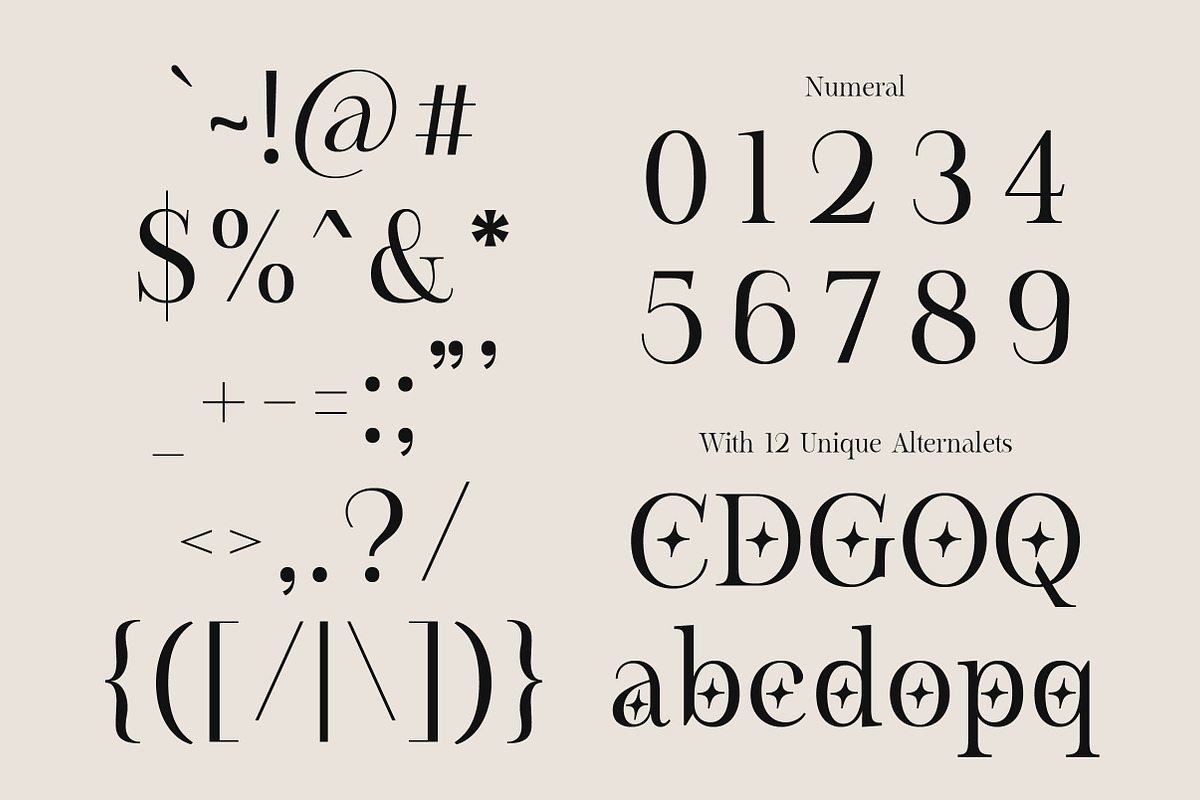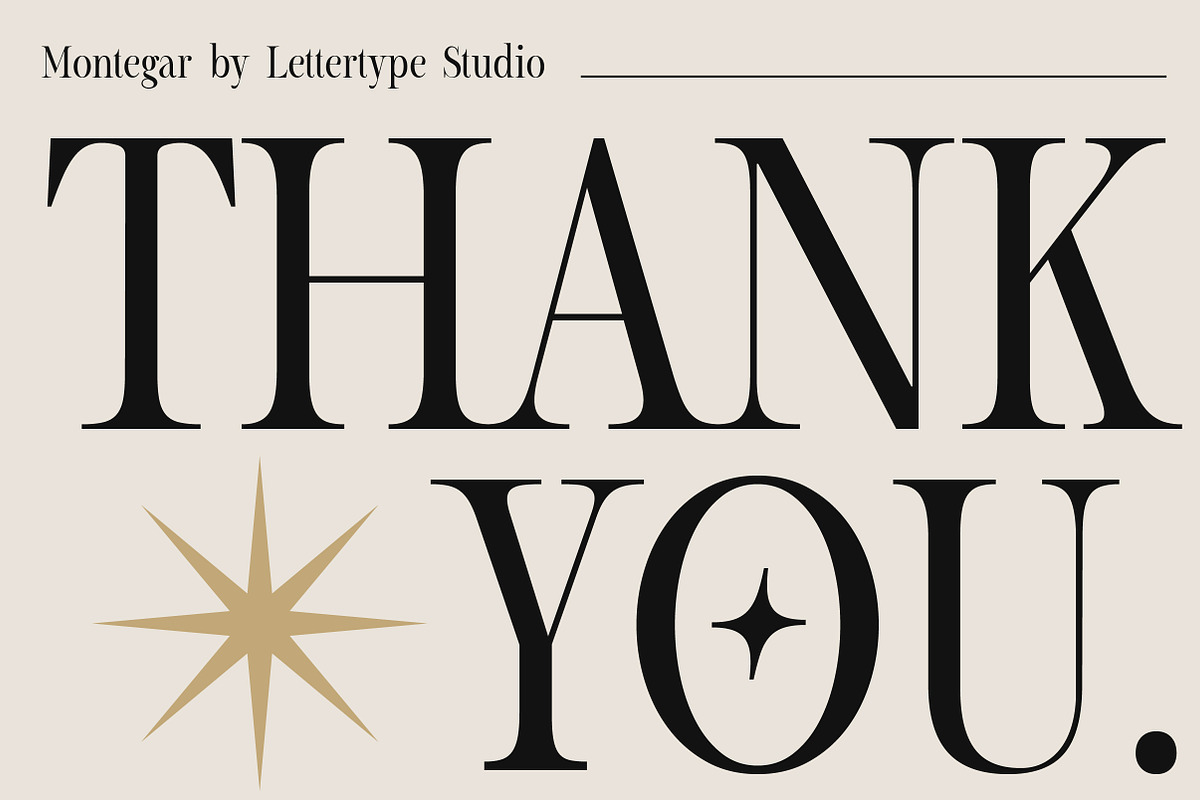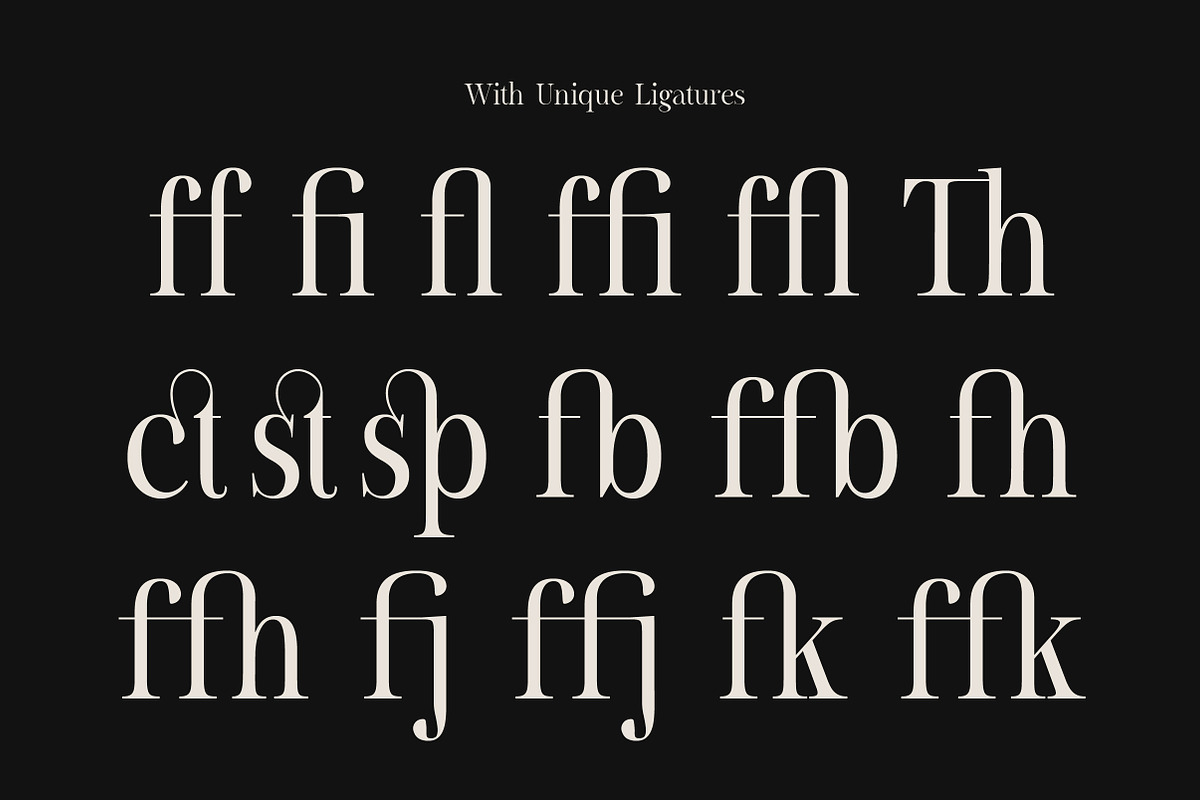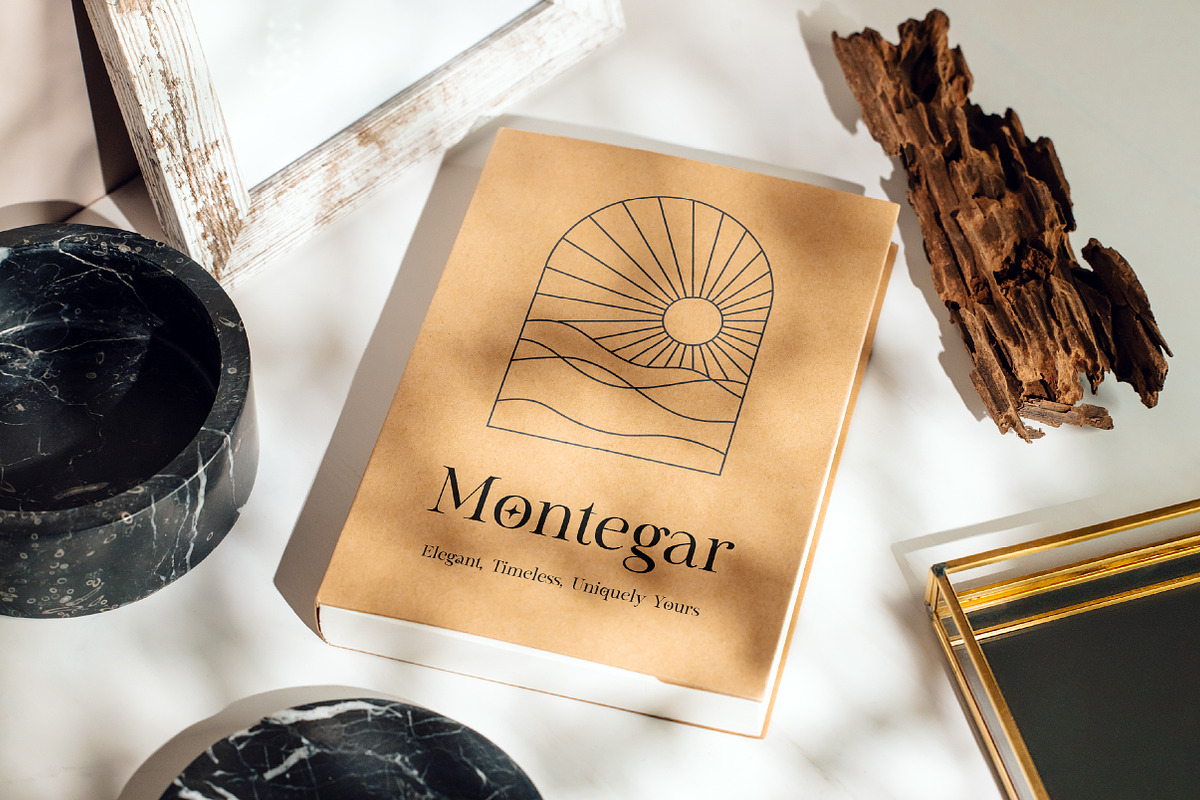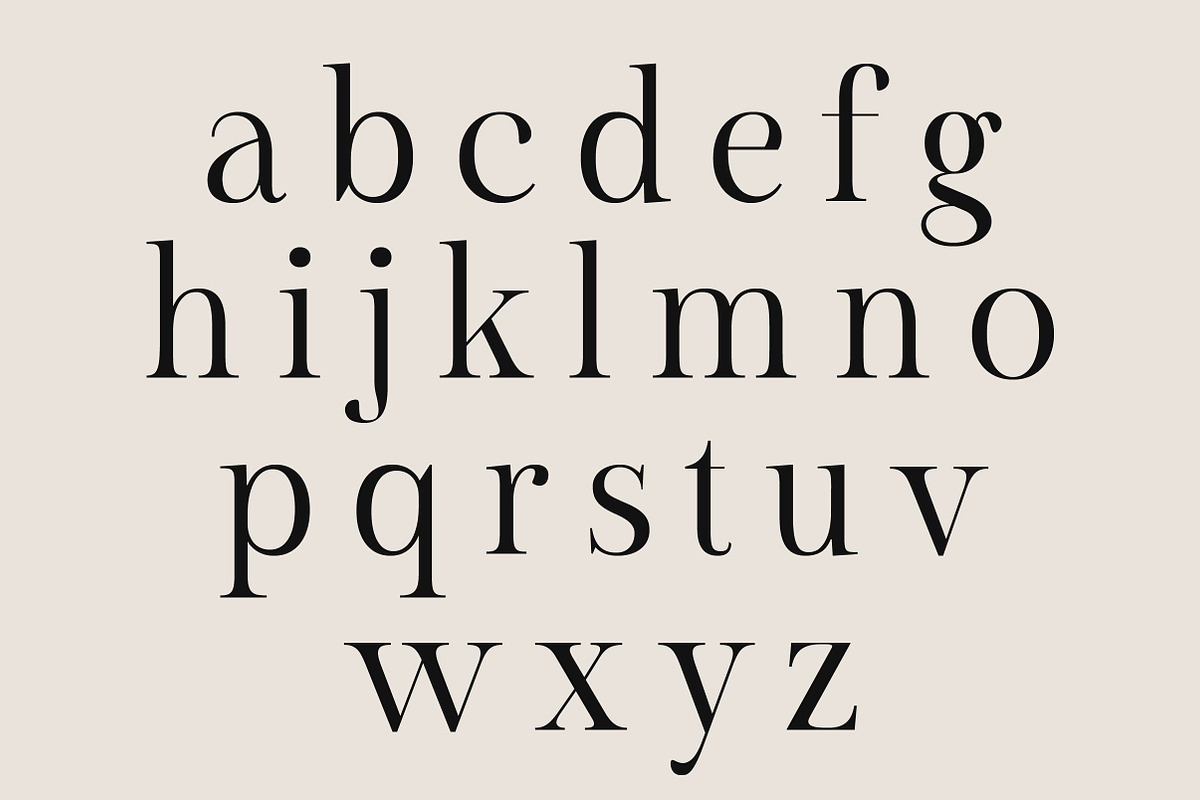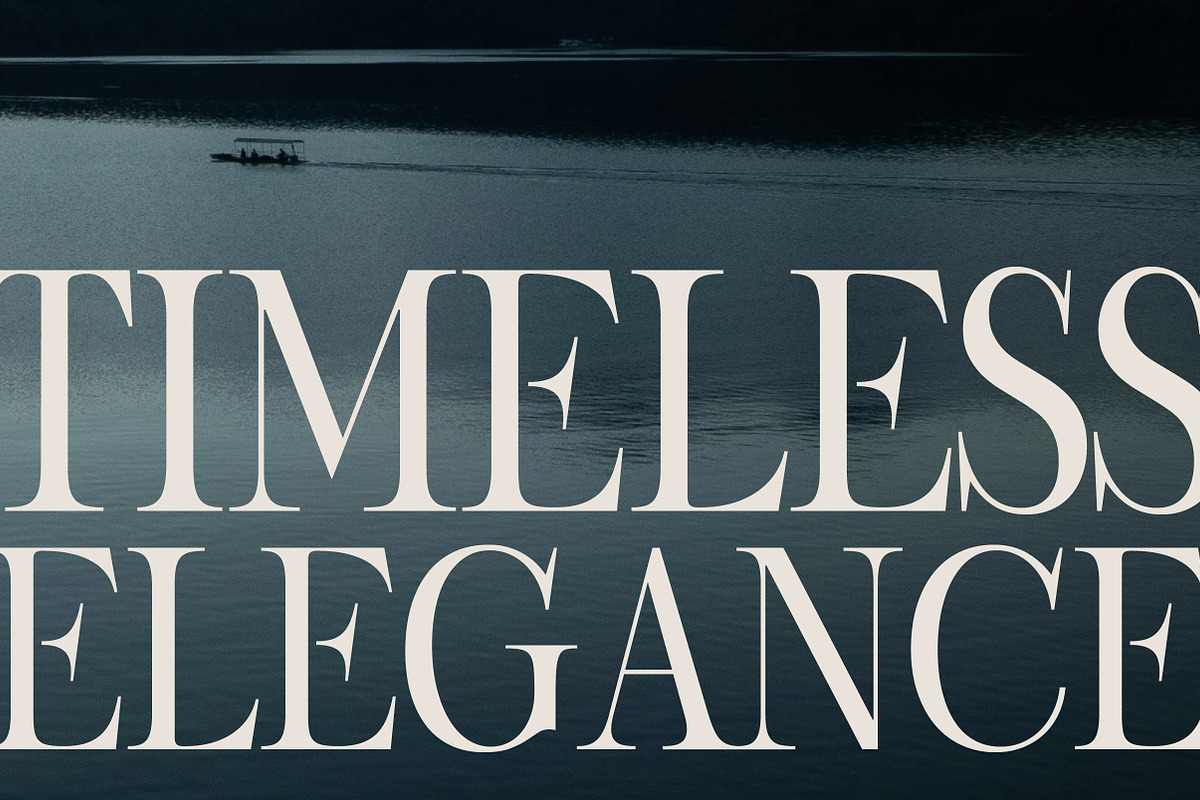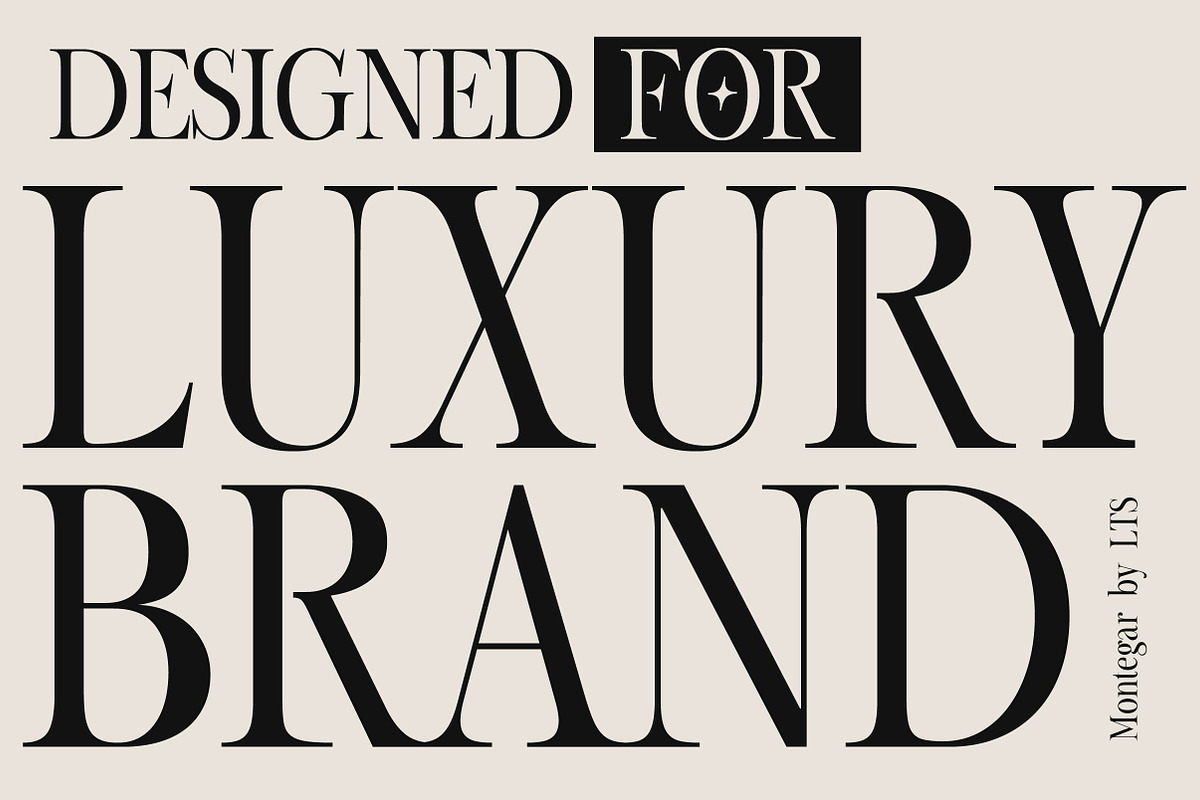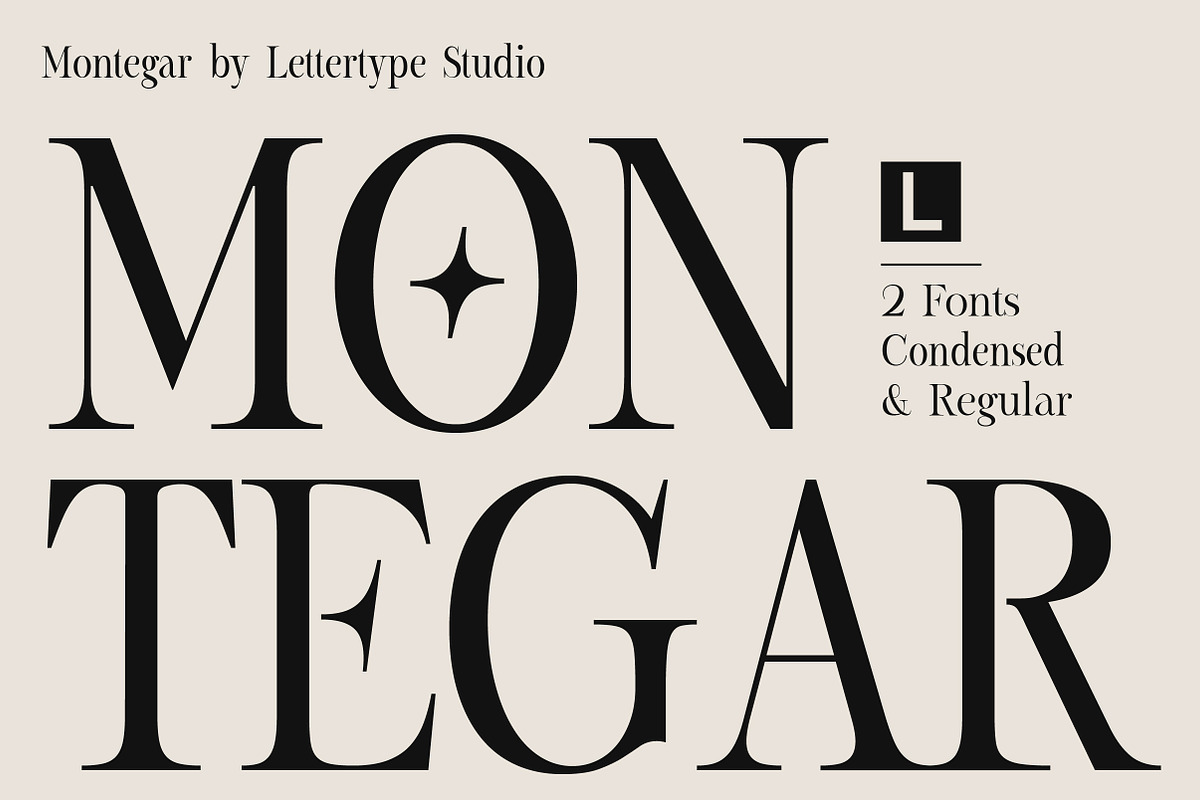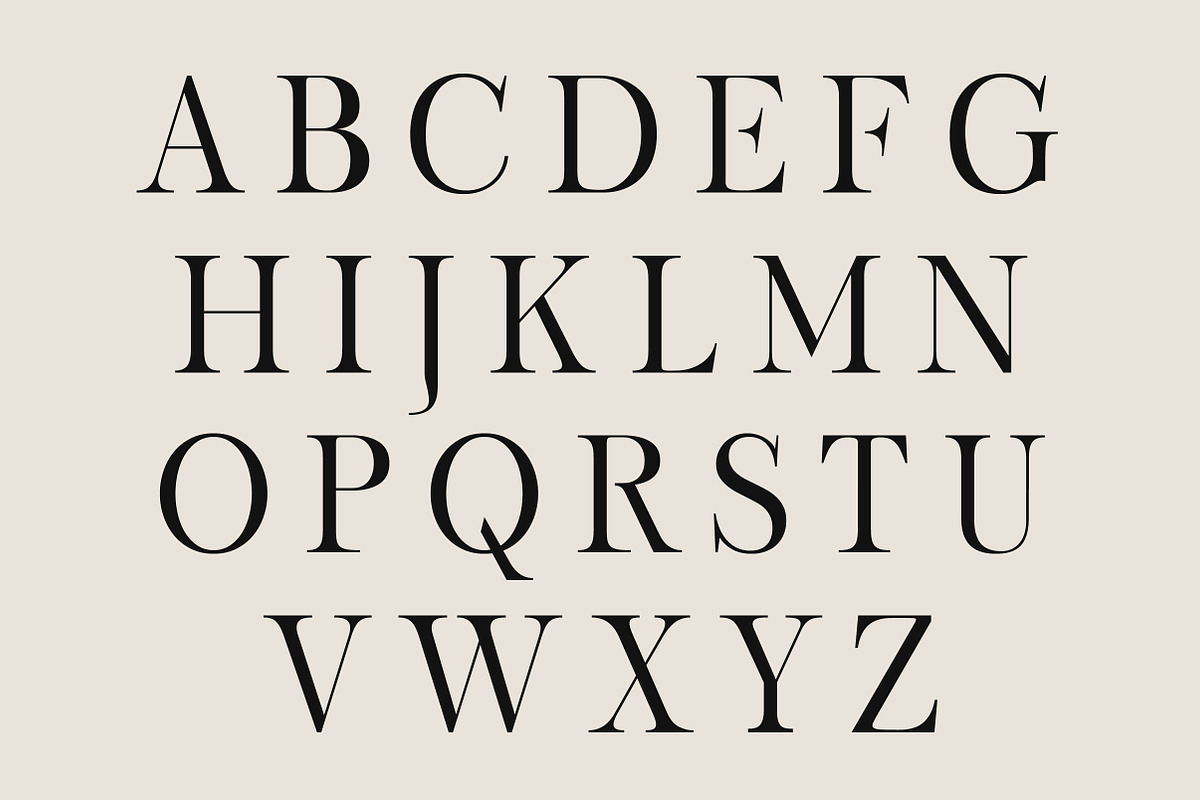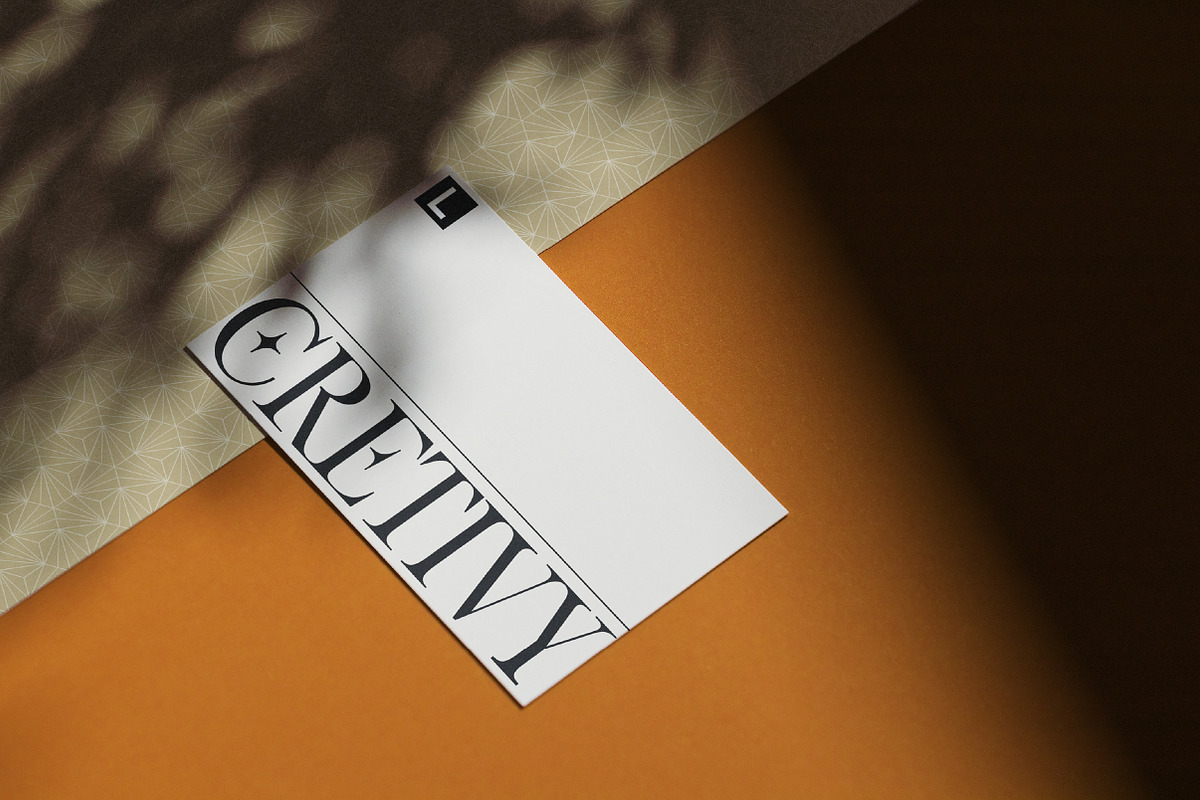
Montegar - Elegant Celestial Serif
Montegar is a modern luxury serif font crafted for premium branding, editorial headlines, fashion identities, and cinematic typography. Built with elegant proportions, dramatic contrast, and refined serif detailing, Montegar delivers a sophisticated visual presence while remaining highly readable across display applications.
The font introduces subtle celestial-inspired star accents and sharp editorial cuts that create a memorable signature without overwhelming the typography. From perfume packaging and jewelry branding to boutique hotels, magazines, posters, and luxury campaigns, Montegar offers a balance between timeless elegance and contemporary artistic character.
Montegar Features:
2 Styles
Regular & Condensed
12 Alternates & 17 Unique Ligatures
477 Glyphs Total
260+ Languages Support
Luxury Branding
Fashion Editorial
Perfume & Beauty Packaging
Cinematic Posters
Boutique Hospitality Identity